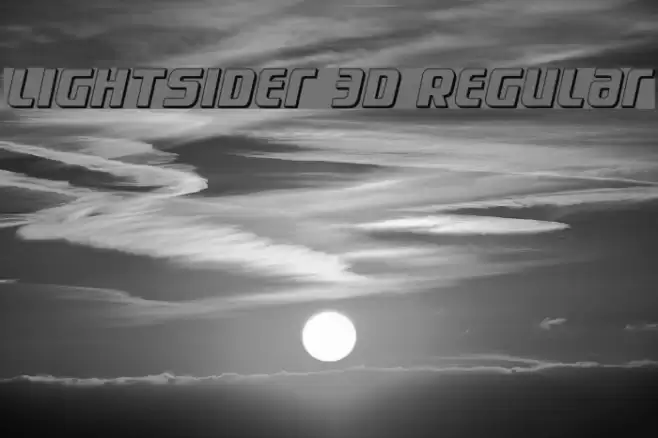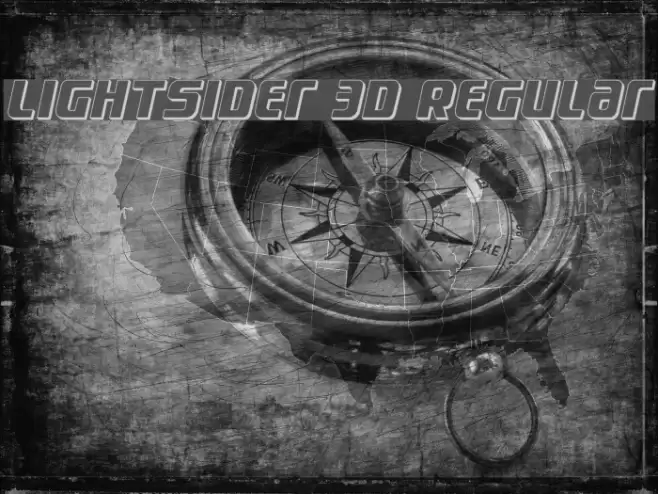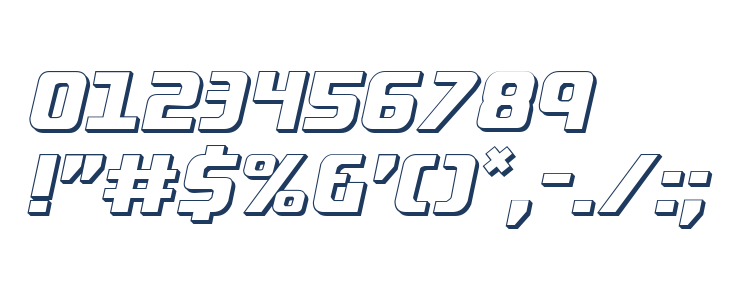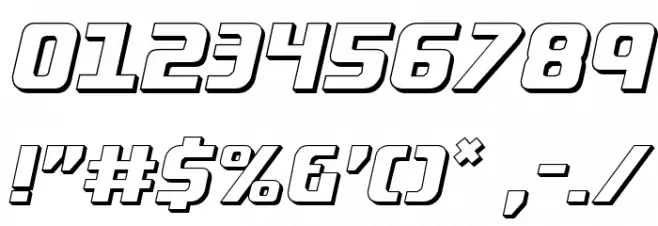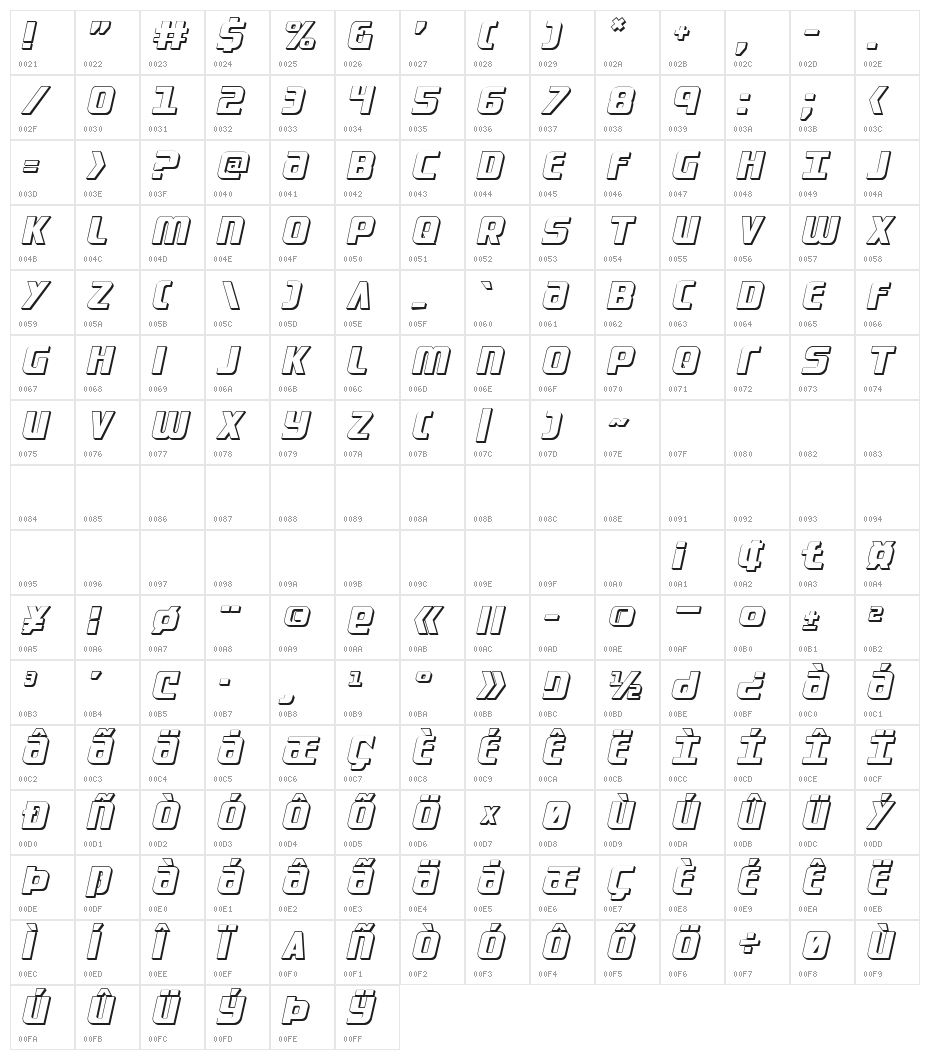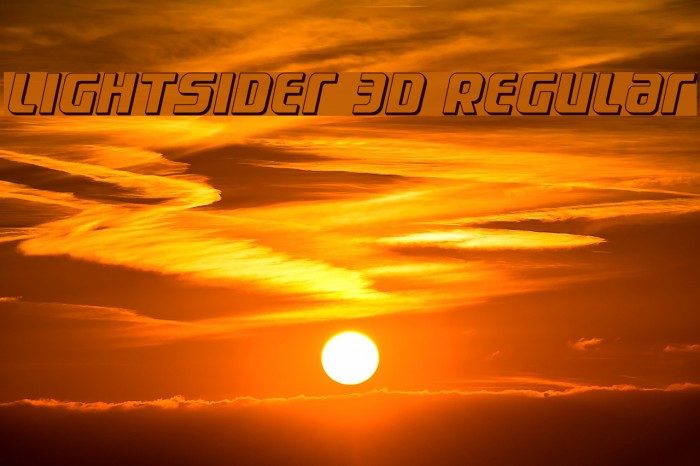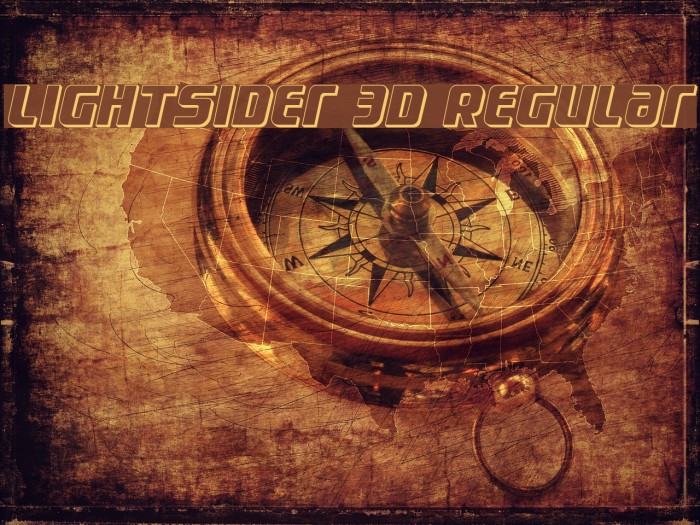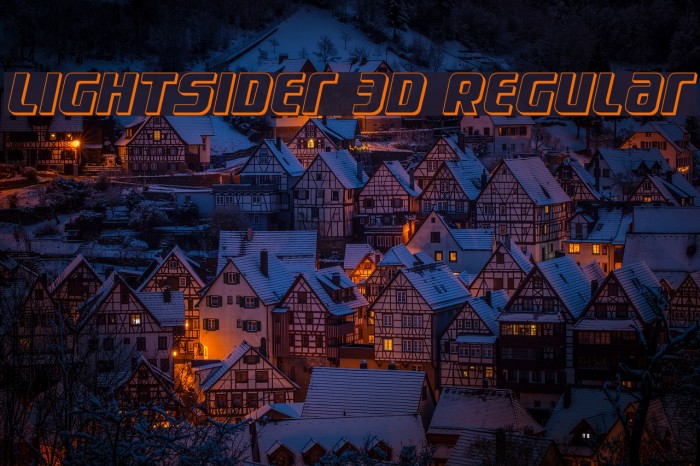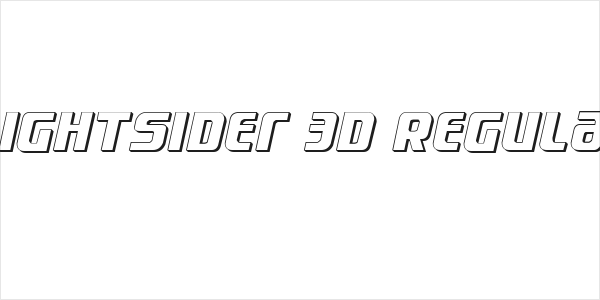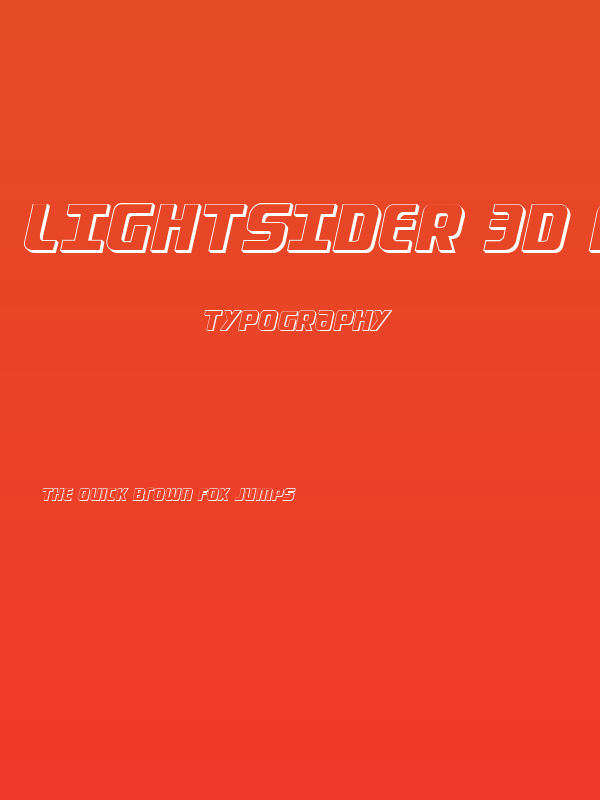
Lightsider 3D Regular Font
Lightsider 3D Regular Description
This font features a bold, three-dimensional appearance with a distinct outline that gives it a futuristic and dynamic look. The characters are uppercase and lowercase with a consistent geometric style, creating a sense of movement and depth. The numbers and special characters maintain the same bold and outlined design, ensuring uniformity across all glyphs. The font's structure is clean and modern, with each letterform exhibiting a slight slant, enhancing its energetic and forward-thinking aesthetic. The spacing between characters is normal, allowing for clear readability while maintaining its unique style.
A bold, 3D outlined font with a futuristic and dynamic style from Uncategorized fonts.
- Proposed Projects: Ideal for sci-fi themed projects, video game titles, posters, and branding that requires a modern and energetic feel.